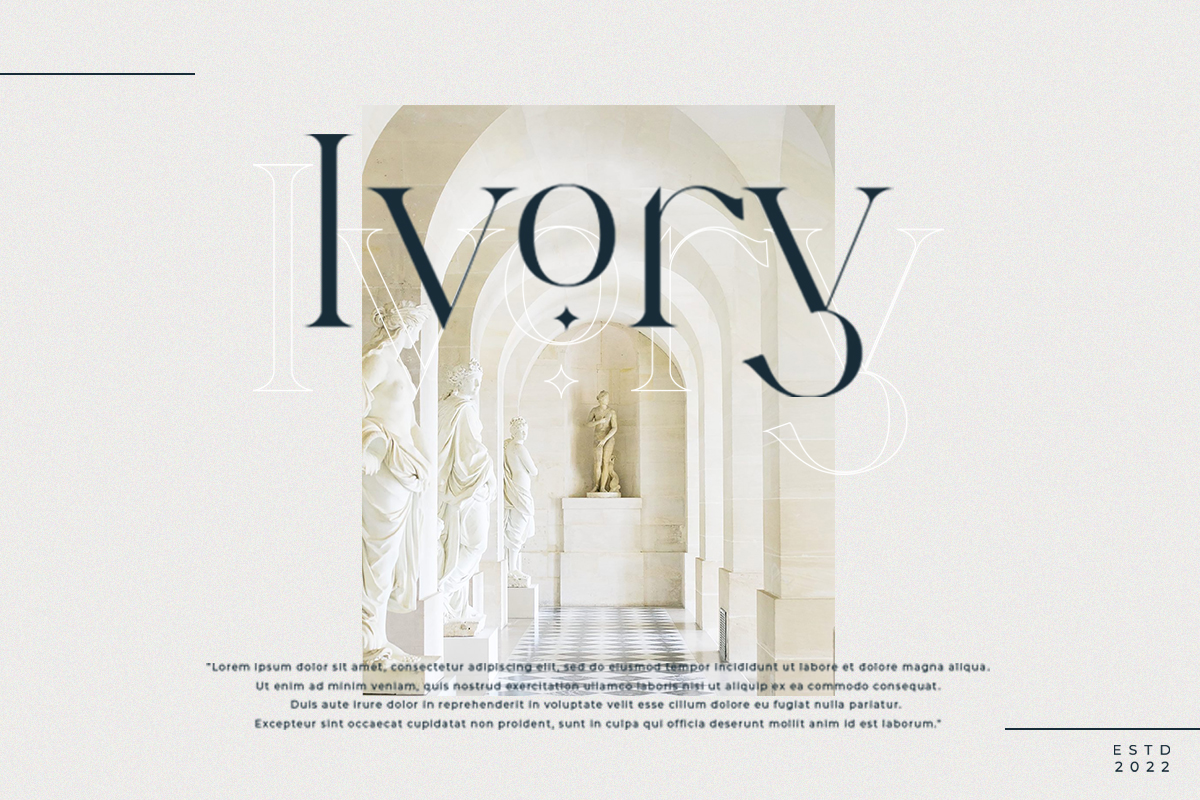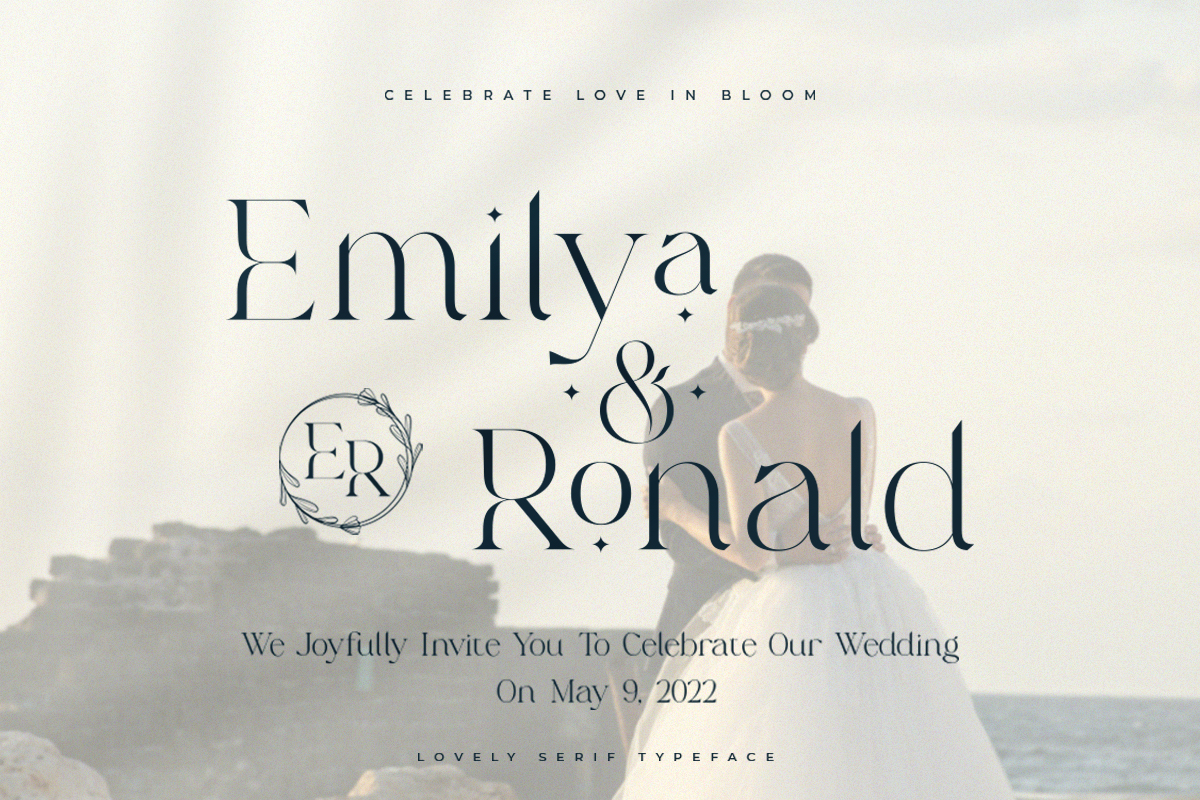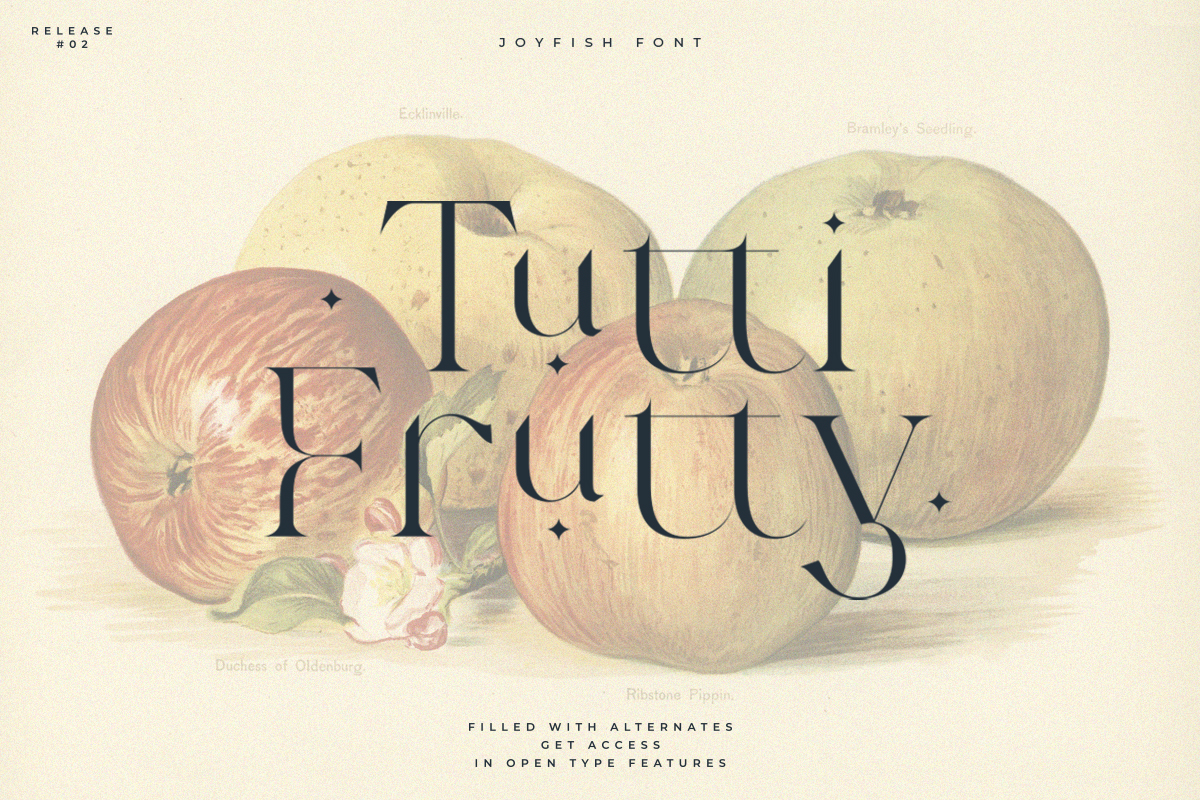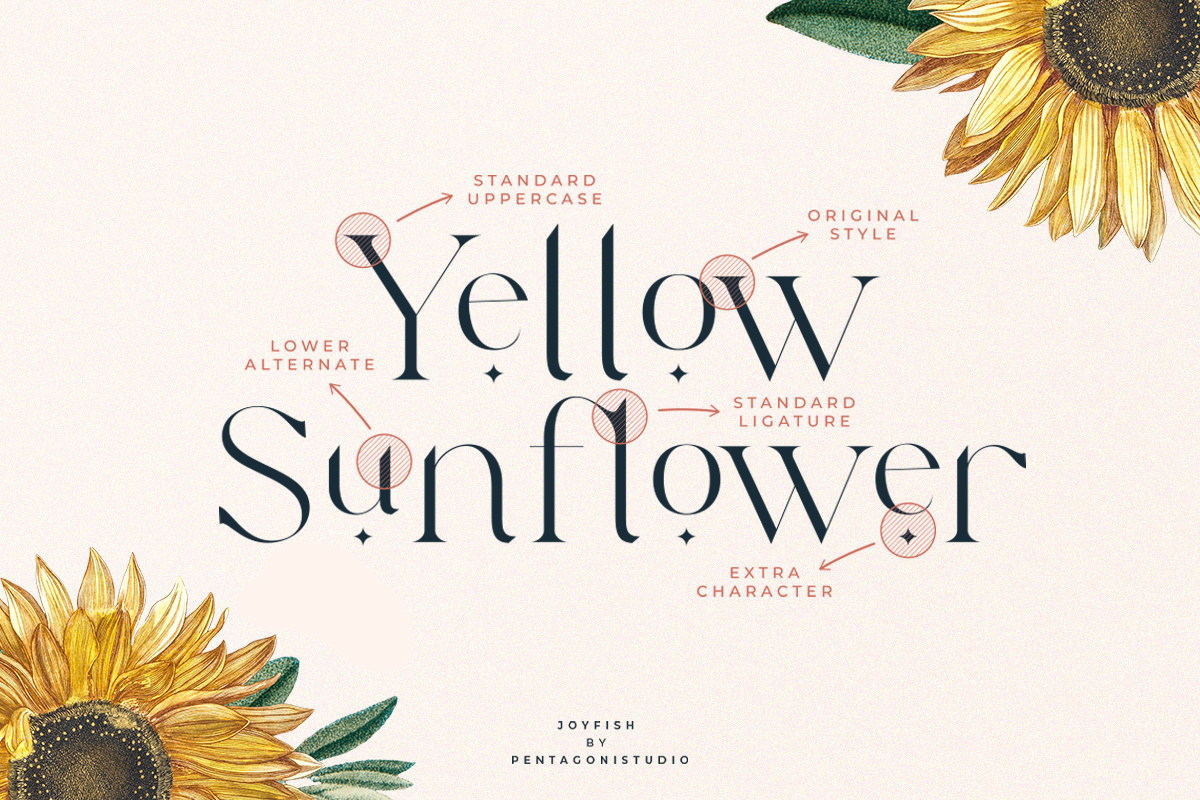
Joyfish Font
Joyfish Serif Font
This is an lovely serif font inspired by luxury and feminine character. This font is perfect for branding, logos, social media, advertisements, product packaging, watermark, invitation, stationery, tshirt, prints, posters and more.